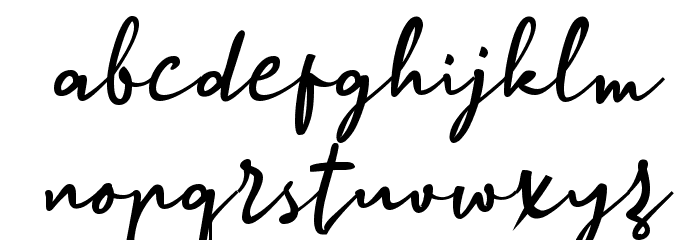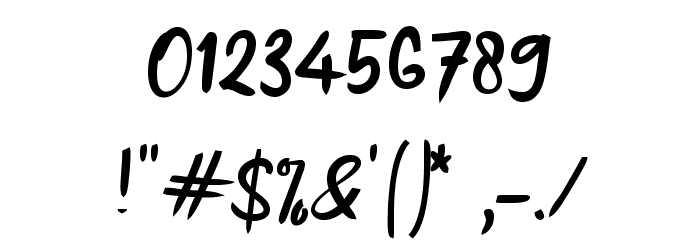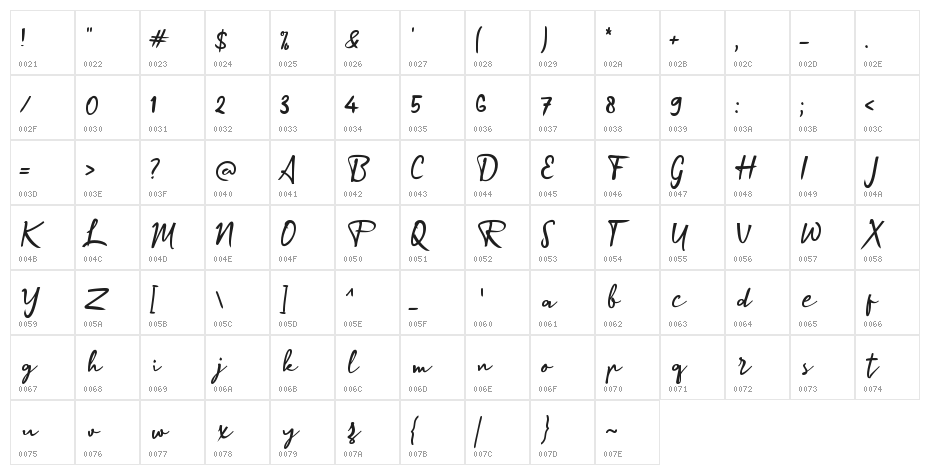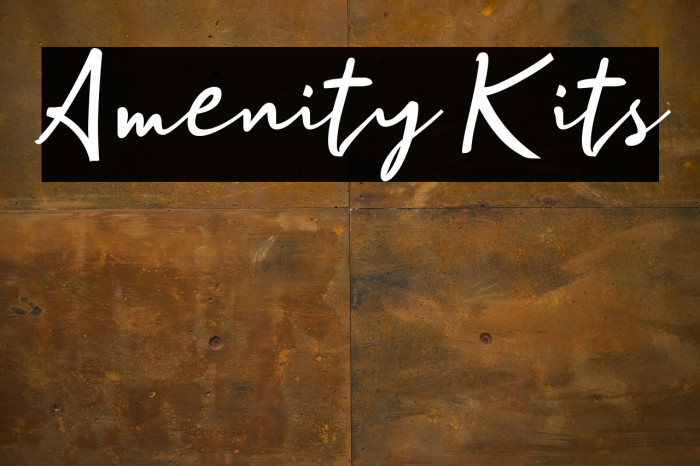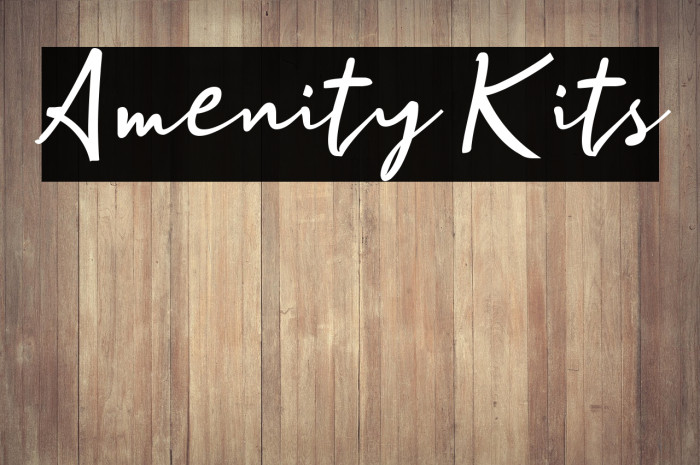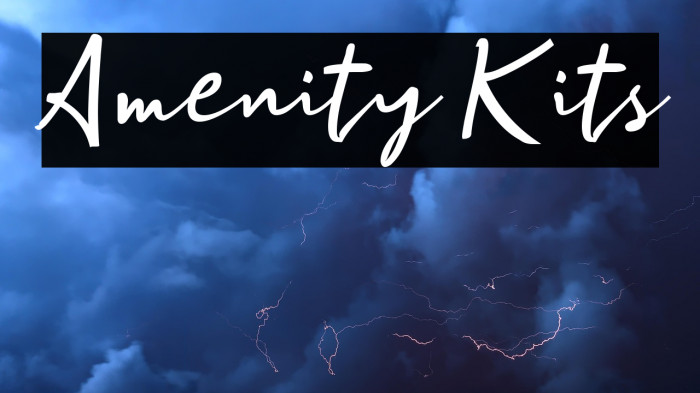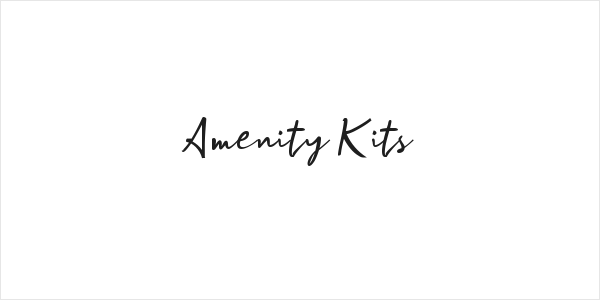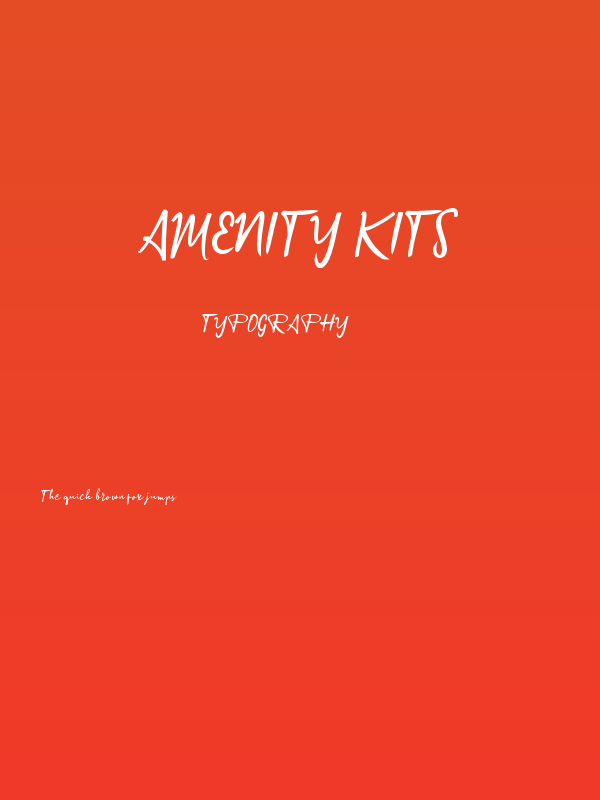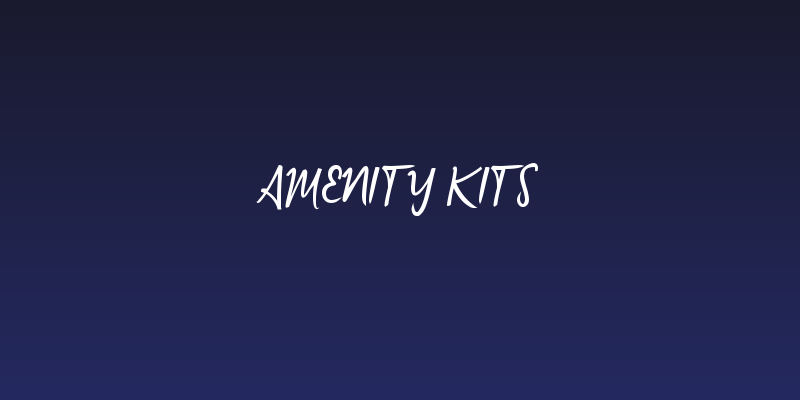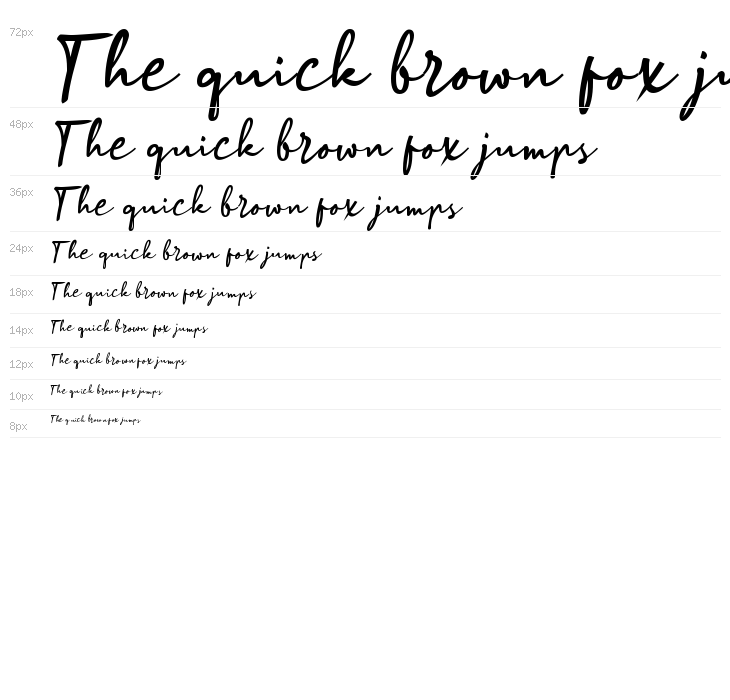
Amenity Kits Font
This font exudes a lively and energetic vibe with its bold, flowing script style. The characters are connected in a fluid manner, reminiscent of handwriting with a modern twist. The uppercase letters are slightly more structured, while the lowercase letters have a more casual, freeform appearance. The numbers and special characters maintain the same dynamic and playful style, making them suitable for creative and informal designs. The overall aesthetic is both elegant and approachable, perfect for adding a personal touch to any project.
A bold, flowing script font with a lively and energetic style.
- Proposed Projects: Ideal for wedding invitations, greeting cards, logos, and branding materials that require a personal and elegant touch.
- Category: Script
- Use Case: Logos, Invitations, Greeting Cards